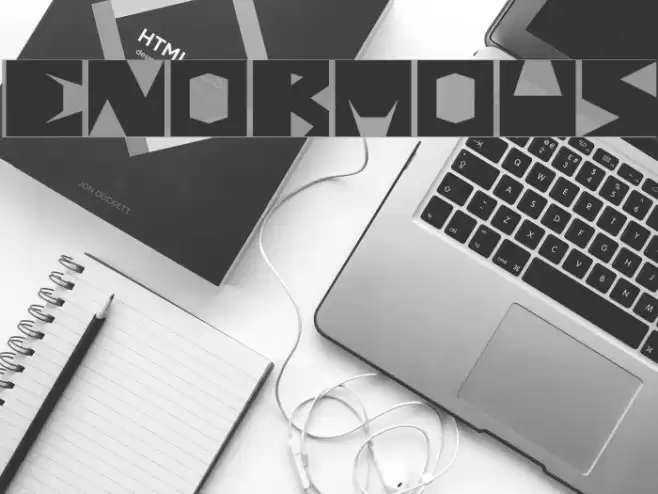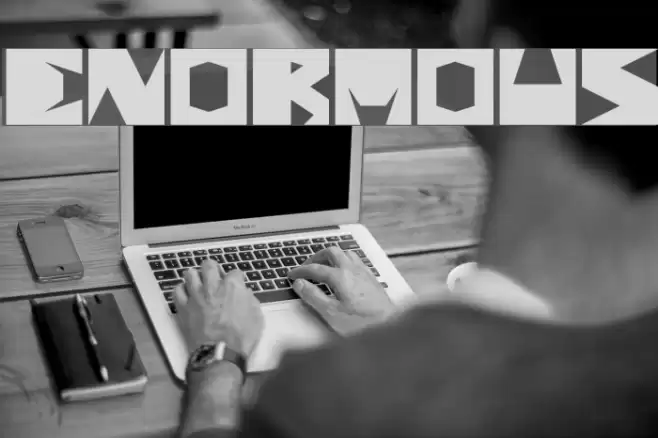
enormous Font
This font features a bold, geometric design with sharp angles and a blocky appearance. Each character is crafted with a distinct, edgy style that gives it a futuristic and dynamic look. The uppercase letters are particularly striking, with their angular cuts and strong presence. The lowercase letters maintain the same geometric theme, offering a cohesive look across the typeface. Numbers and special characters are designed to match the bold and angular style, ensuring consistency throughout. This font is ideal for projects that require a modern, eye-catching aesthetic.
A bold, geometric font with sharp angles and a futuristic style from Uncategorized fonts.
- Proposed Projects: Ideal for branding, posters, video game graphics, and sci-fi themed designs.